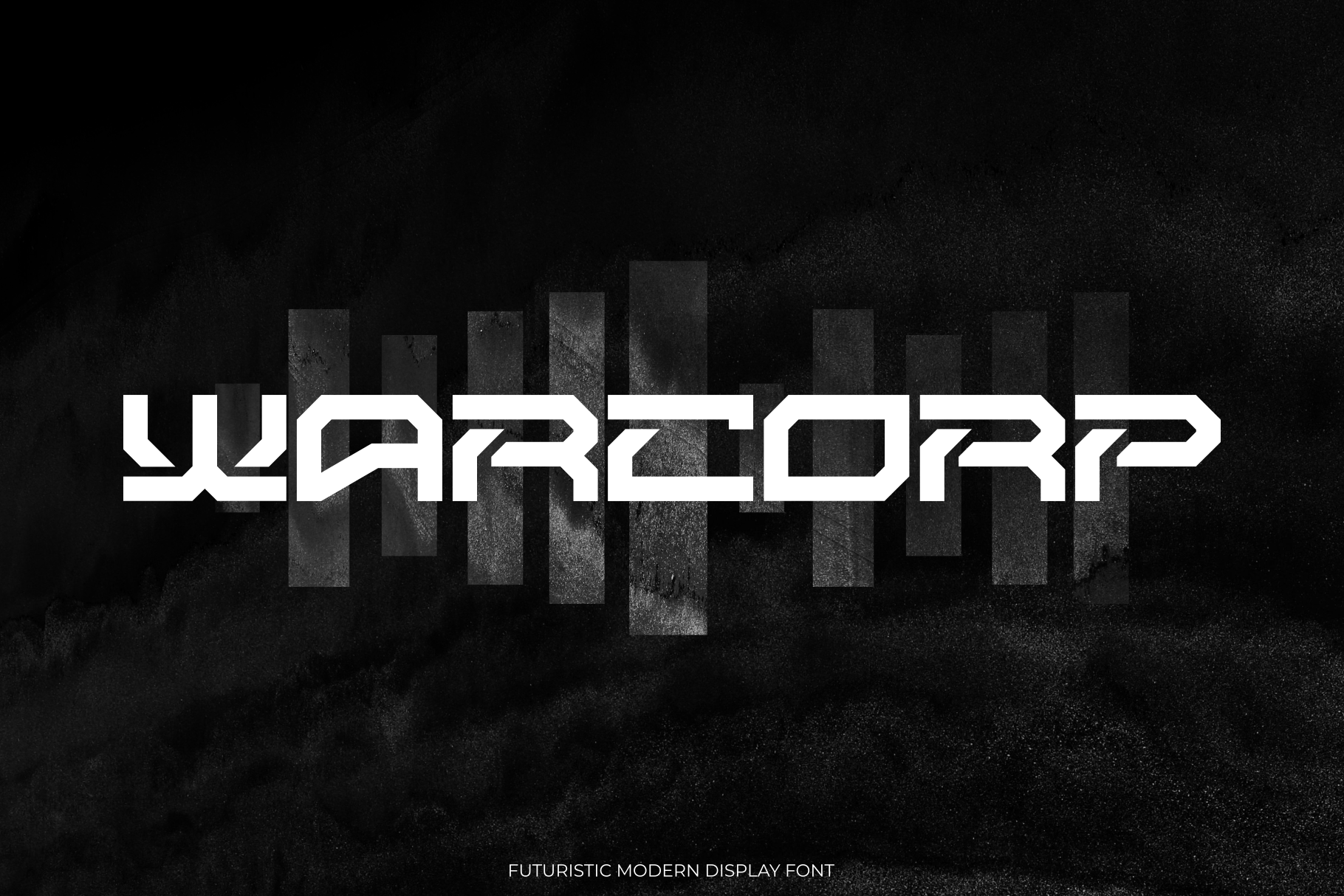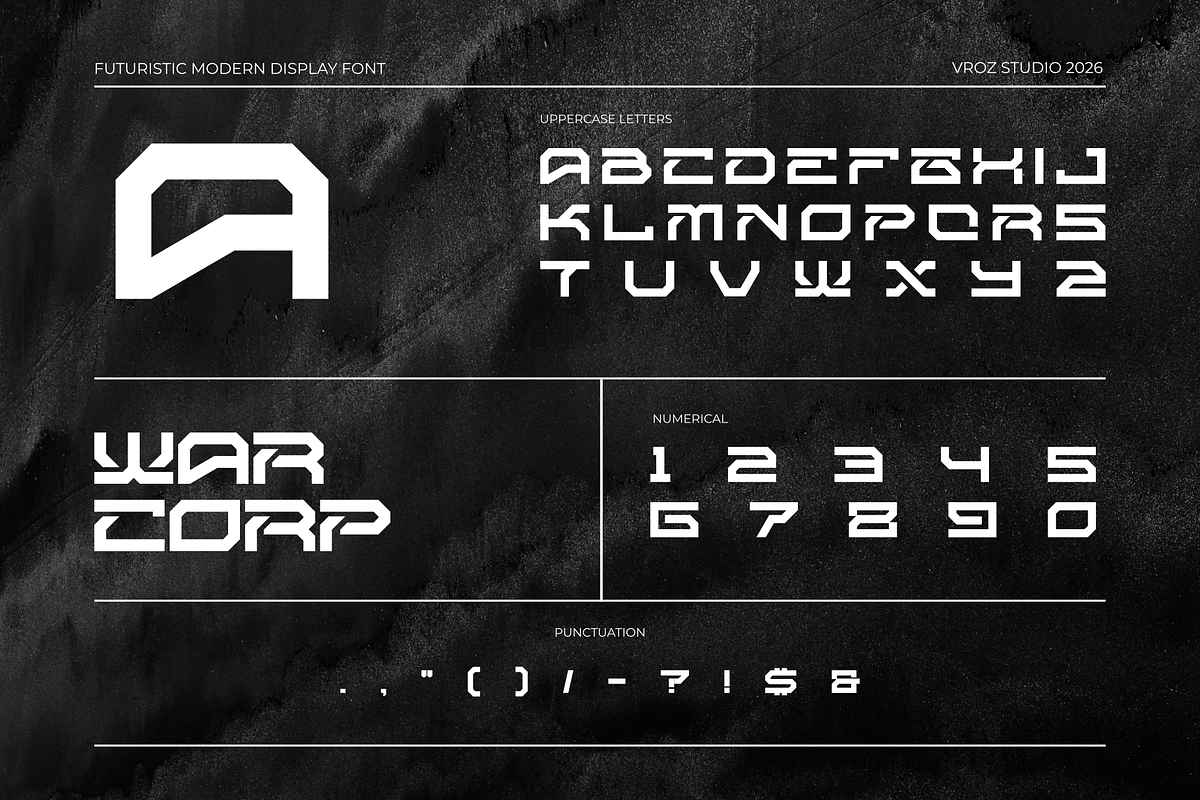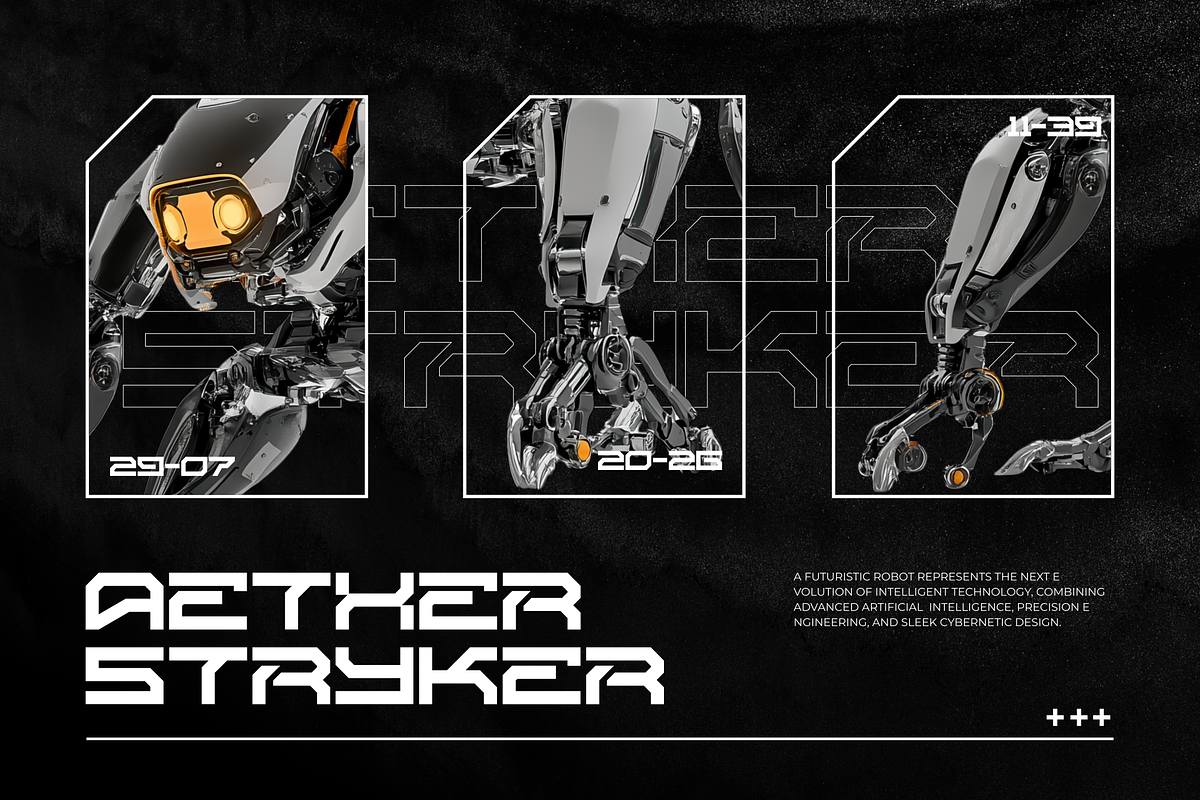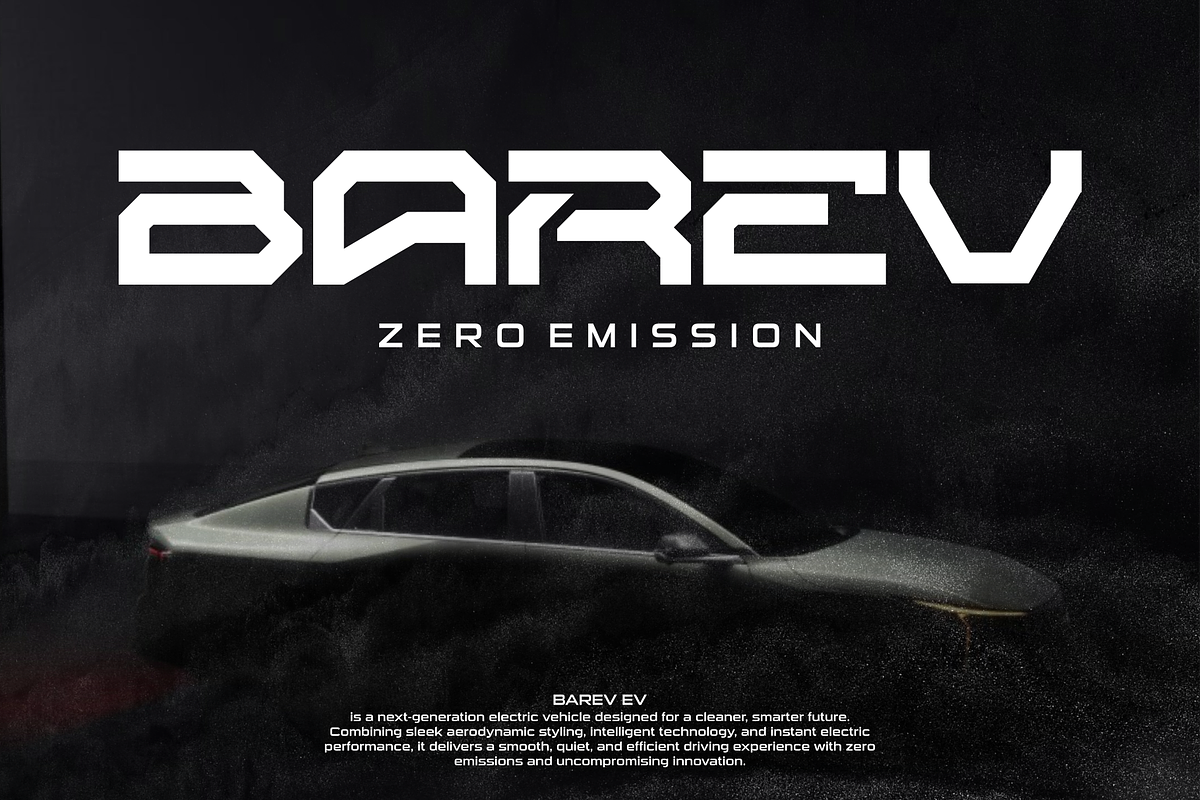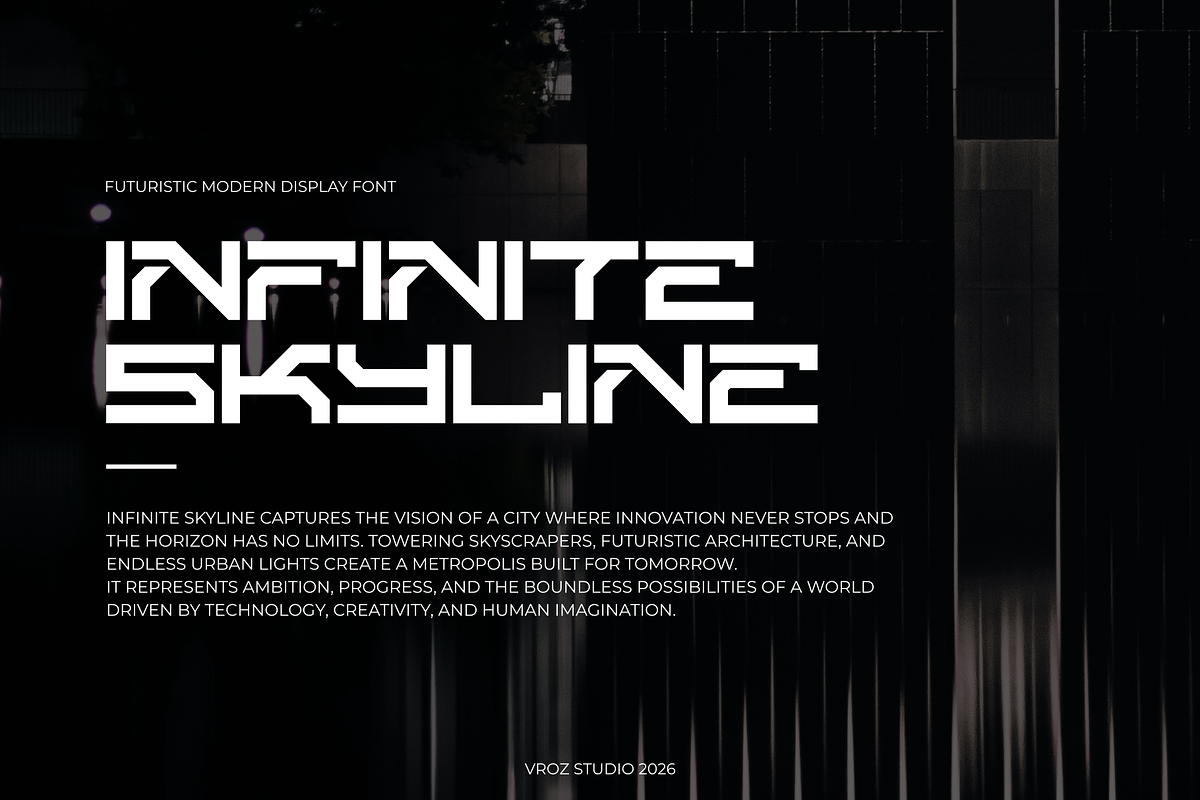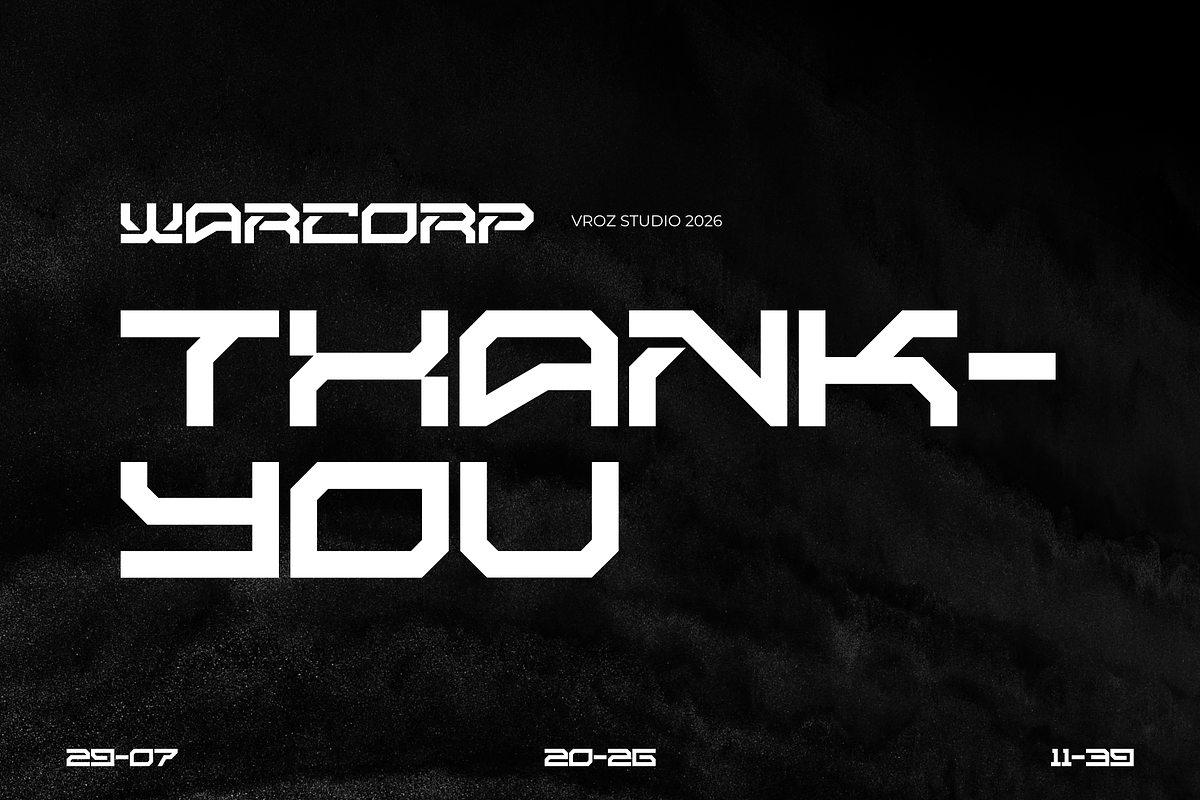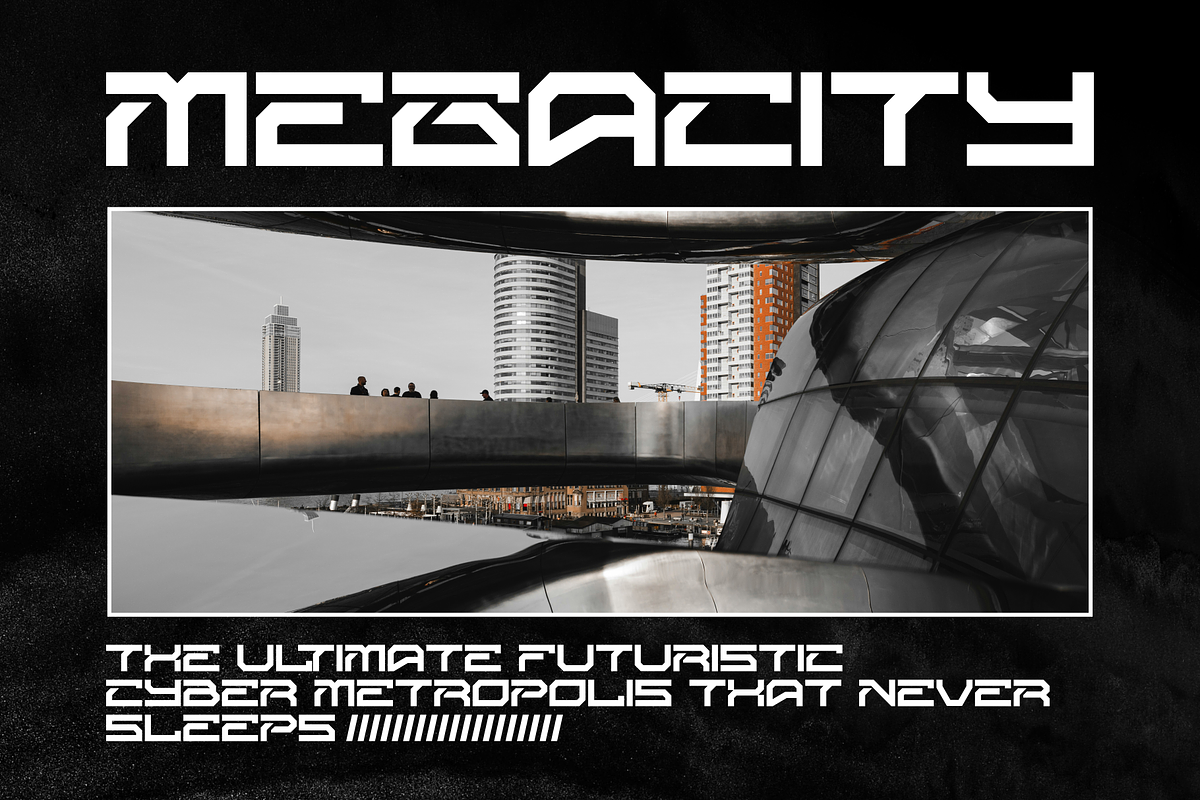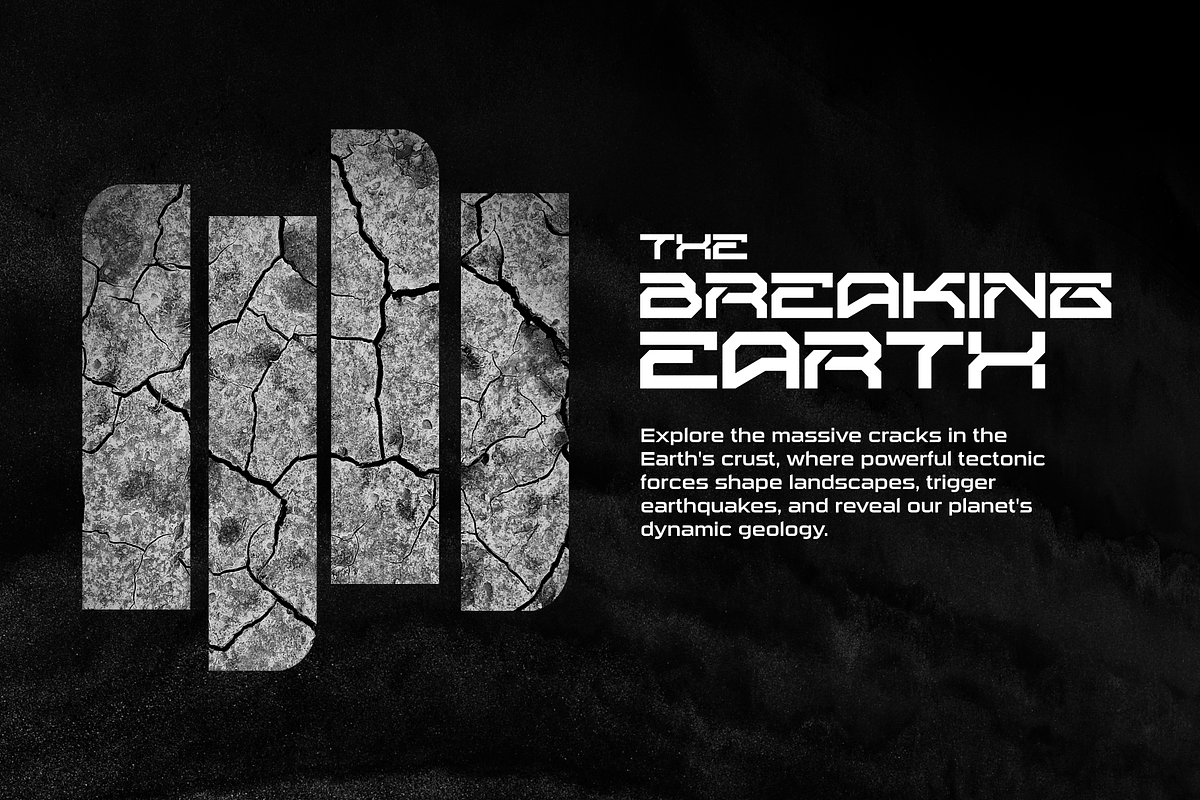
WARCORP – Futuristic Display Font
WARCORP – Futuristic Cyberpunk Display Font
Step into a world where technology meets bold design with WARCORP, a futuristic display font inspired by cyberpunk aesthetics, digital warfare, and next-generation innovation. Built with sharp angles, powerful geometry, and a commanding visual presence, WARCORP is designed to make every headline stand out.
Its clean yet aggressive letterforms deliver a high-tech appearance that fits perfectly in modern digital environments. Whether you're creating gaming identities, sci-fi branding, or futuristic interfaces, WARCORP gives your designs a strong, professional, and futuristic edge.
Gaming & Esports Logos
Cyberpunk & Sci-Fi Posters
Technology & AI Branding
Stream Graphics for Twitch, YouTube & Kick
UI, HUD & Digital Interface Design
Music Covers (EDM, Synthwave, Industrial)
Apparel, Merchandise & Futuristic Packaging
YouTube Thumbnails & Social Media Graphics
Bring your vision into the next generation with WARCORP—a futuristic font built for creators who want bold, cutting-edge typography that leaves a lasting impression.